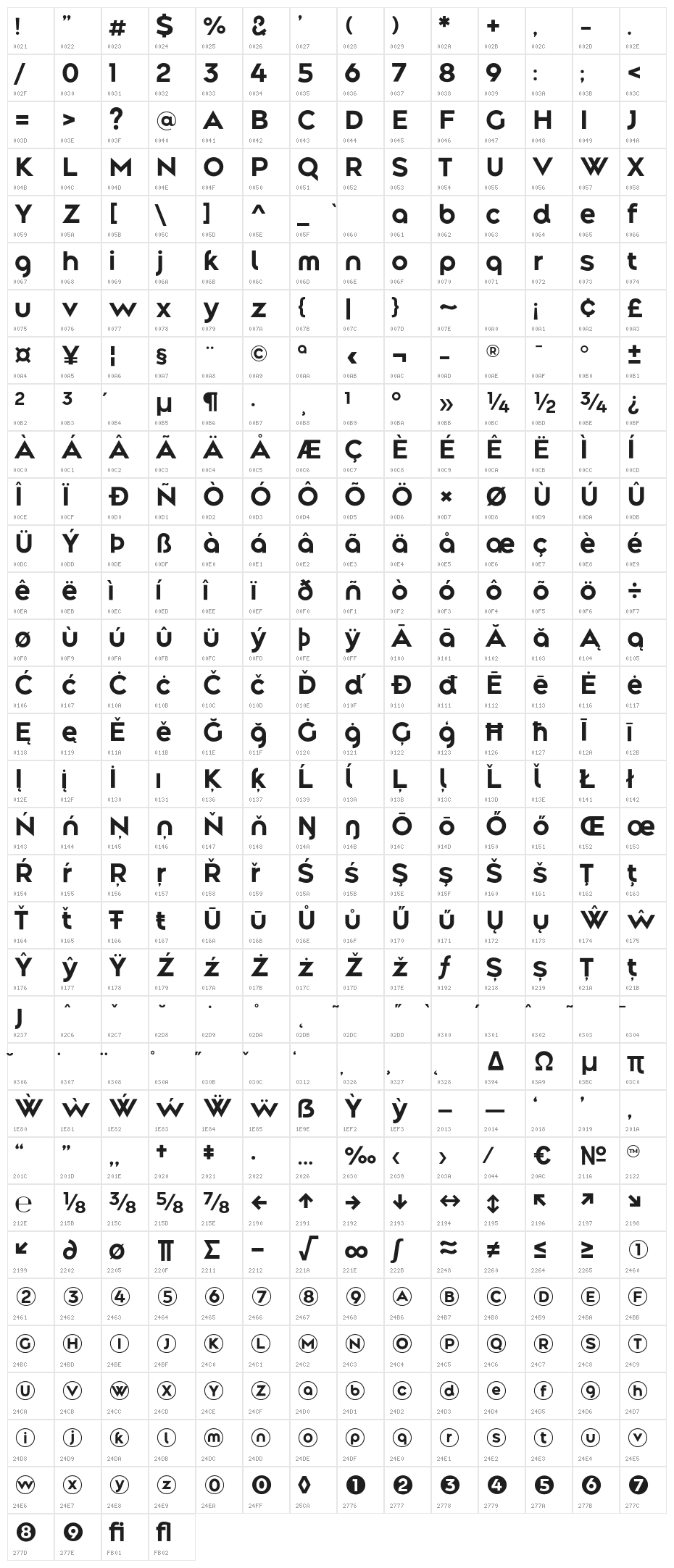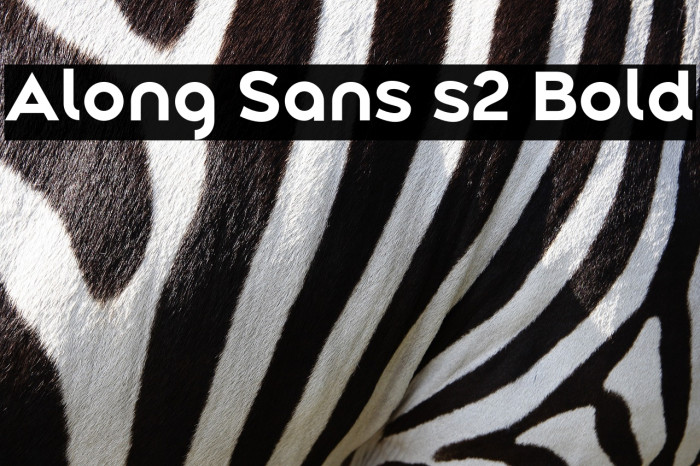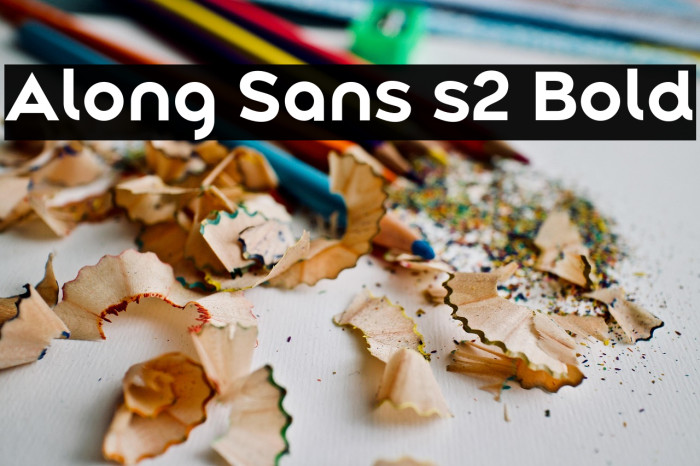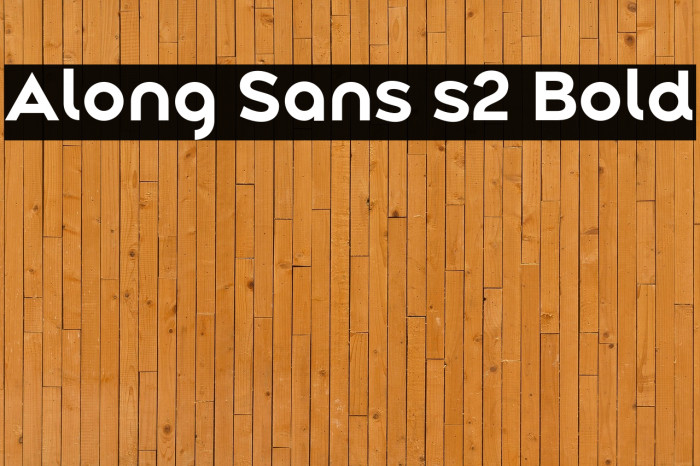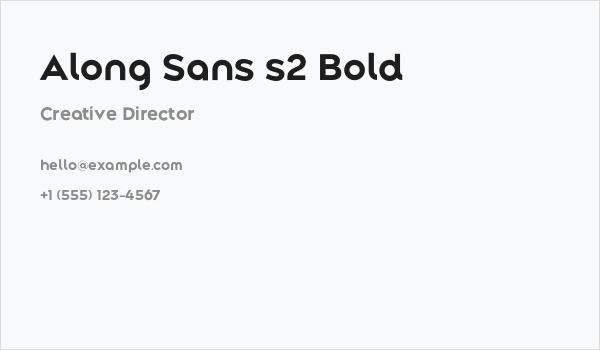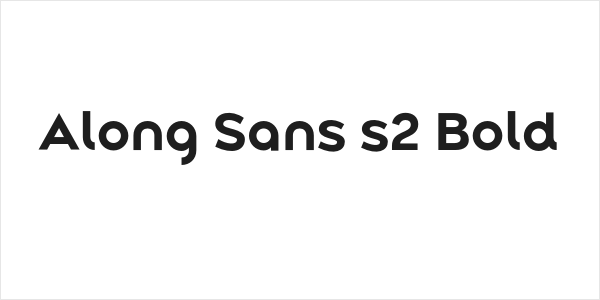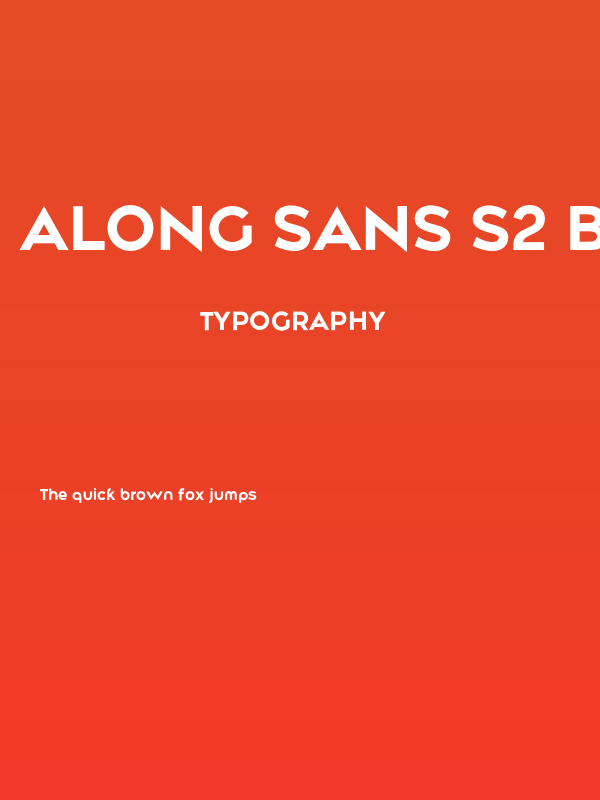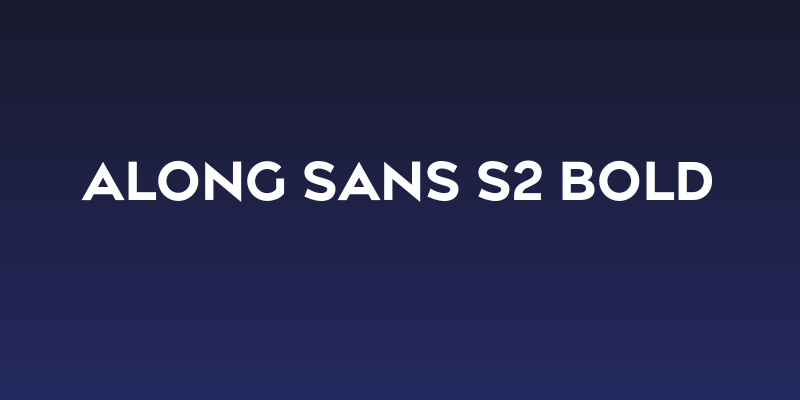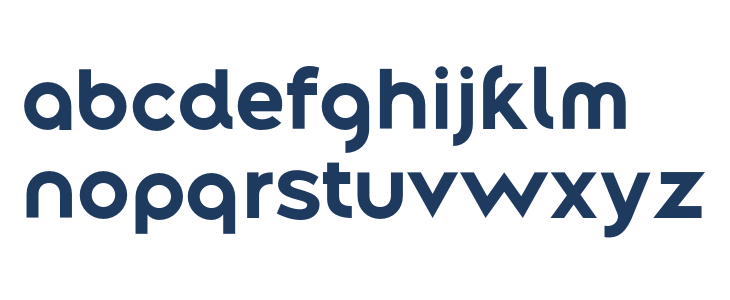
Along Sans s2 Bold Font
Along Sans s2 Bold Description
This font features a bold and modern sans-serif design, characterized by clean lines and a geometric structure. The uppercase letters are uniform in height, providing a strong and cohesive appearance. The lowercase letters maintain a consistent roundness, contributing to the font's approachable and friendly demeanor. Numbers are clear and easily distinguishable, making them suitable for various applications. Special characters are well-defined, ensuring versatility in design projects. The overall style is contemporary, making it ideal for modern branding and digital interfaces.
| Use Case | Headlines, Logos, Digital Interfaces |
| Proposed Projects | Ideal for branding, digital interfaces, advertising, and editorial design. |